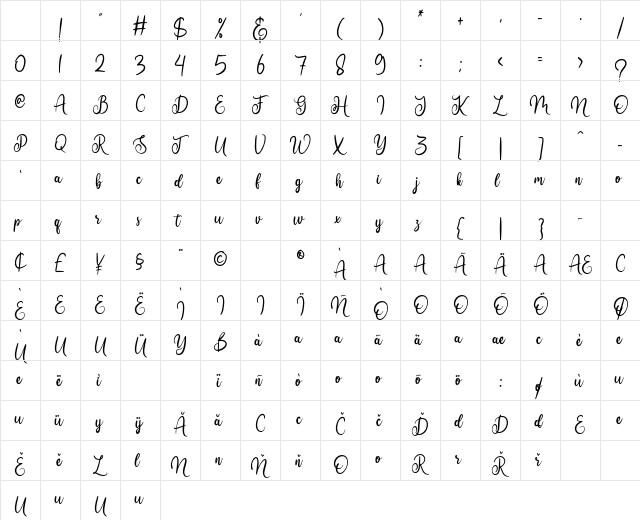
dearheart is a composed and adaptable typeface that performs quietly and consistently across a wide range of design contexts.
Pro Tip: Use dearheart in both headline and body roles to test its range before committing to a single application.